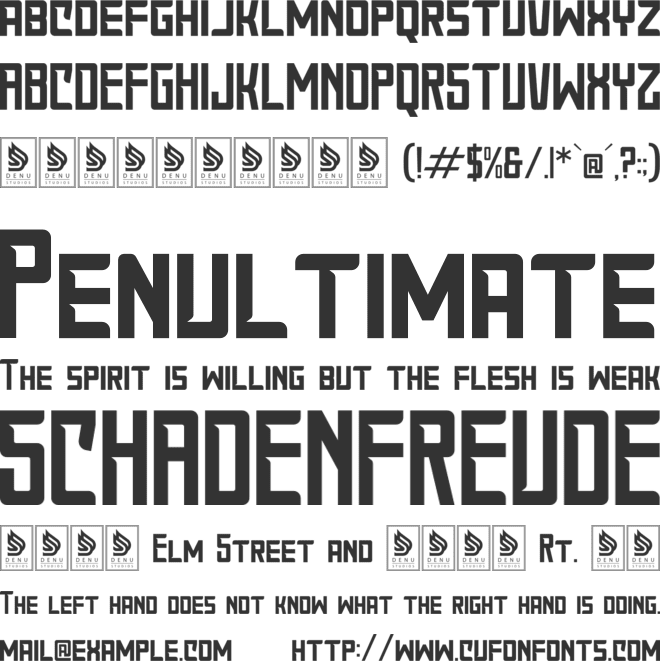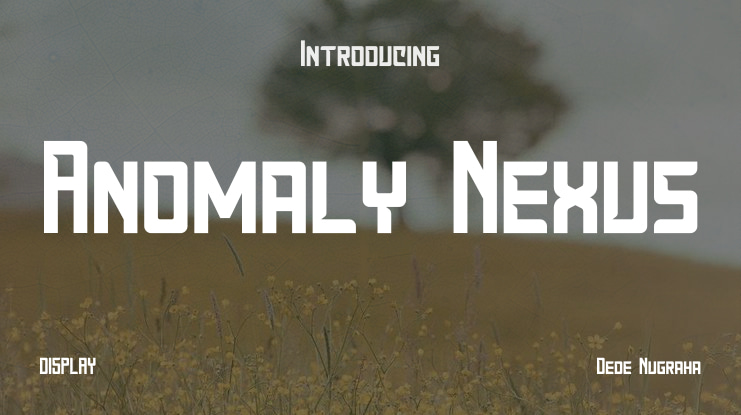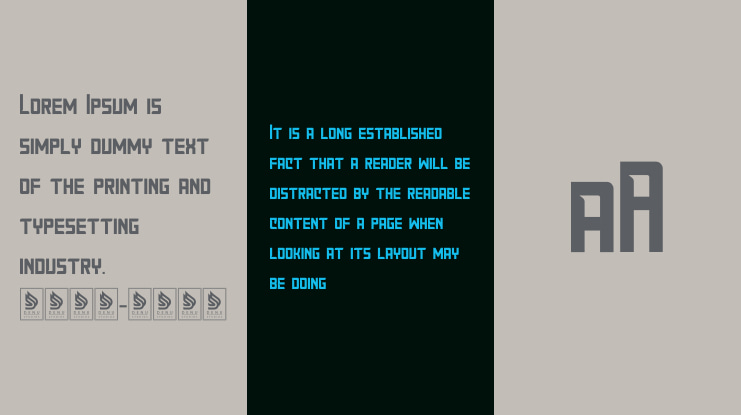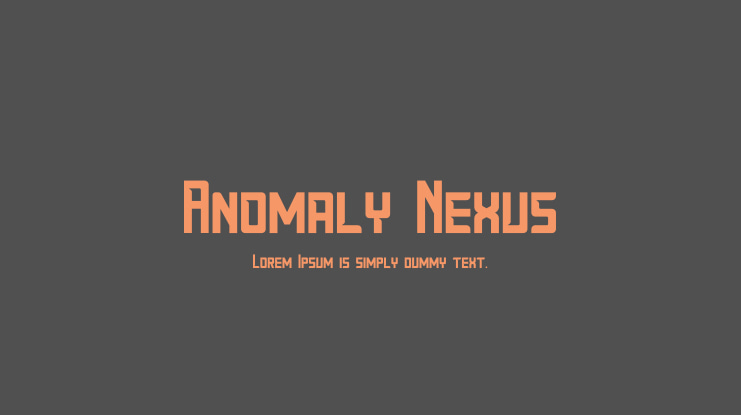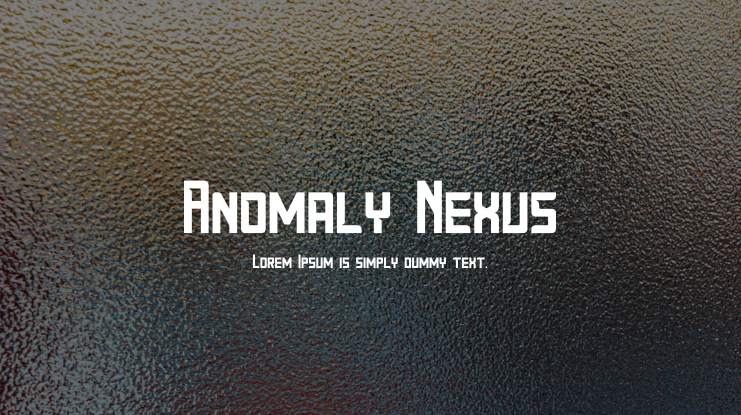
Anomaly Nexus Font
Anomaly Nexus | Space Font is ideal for a variety of projects such as logos, branding, homeware designs, product packaging, mugs, quotes, posters, shopping bags, t-shirts, book covers, business cards, invitation cards, greeting cards, labels, photography, watermarks, special events, and any other projects that could benefit from a Space Font touch.